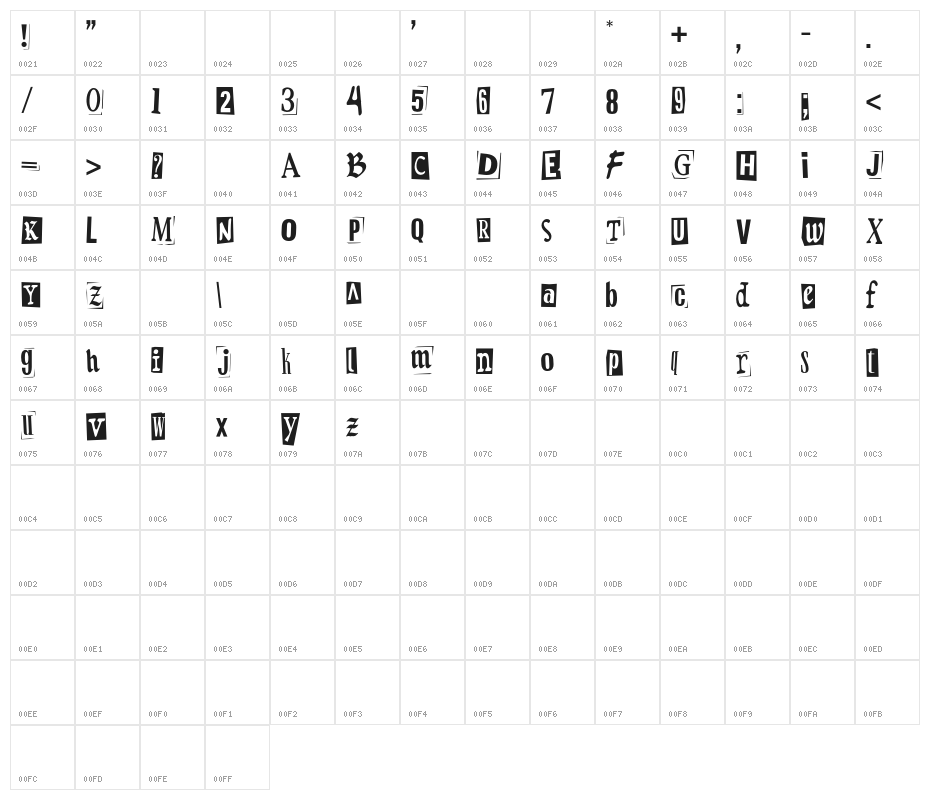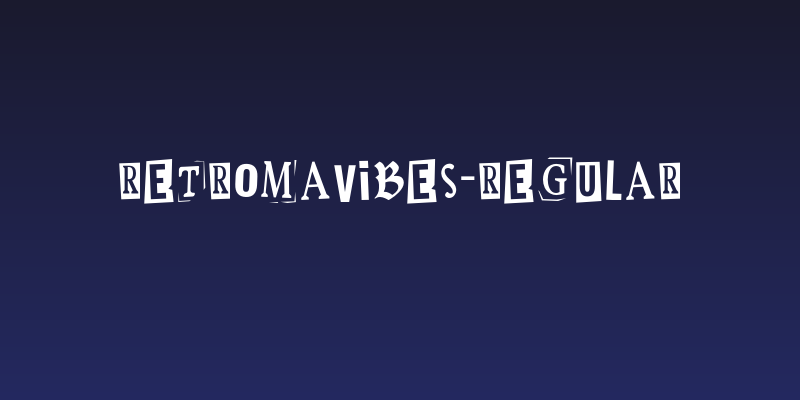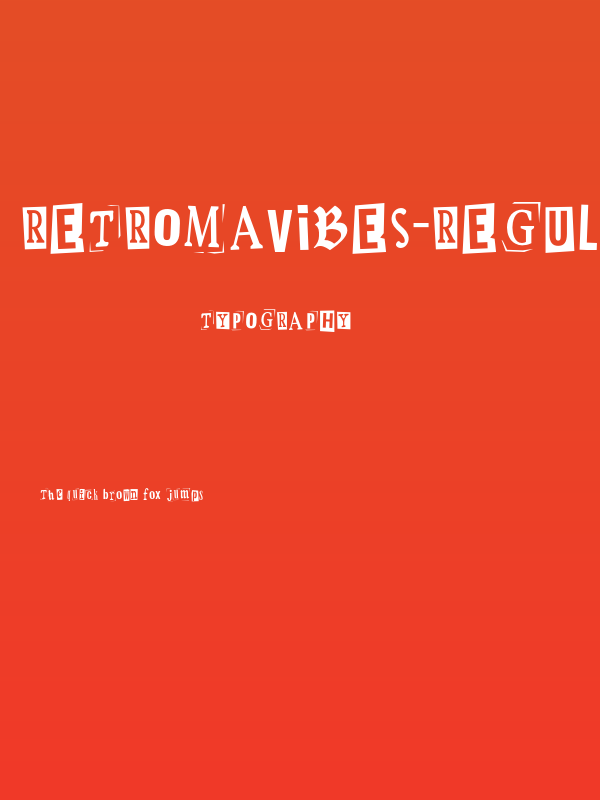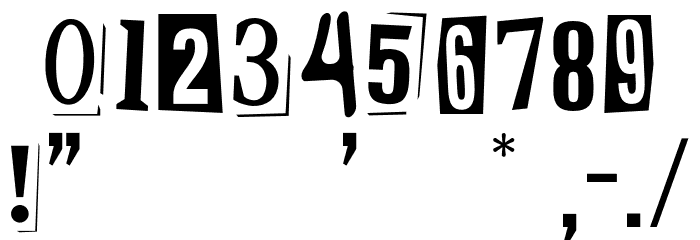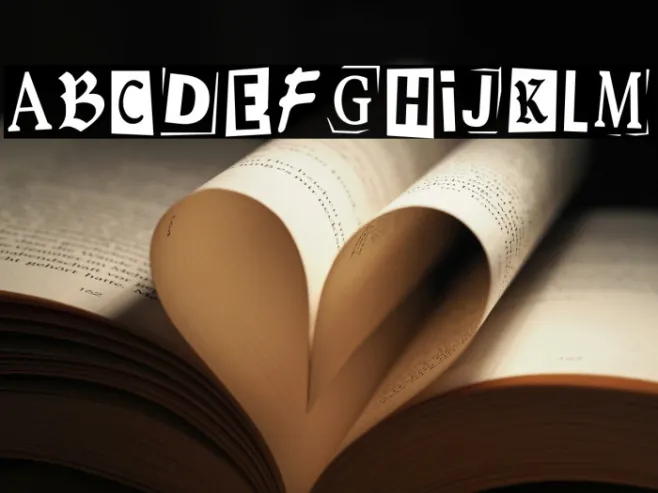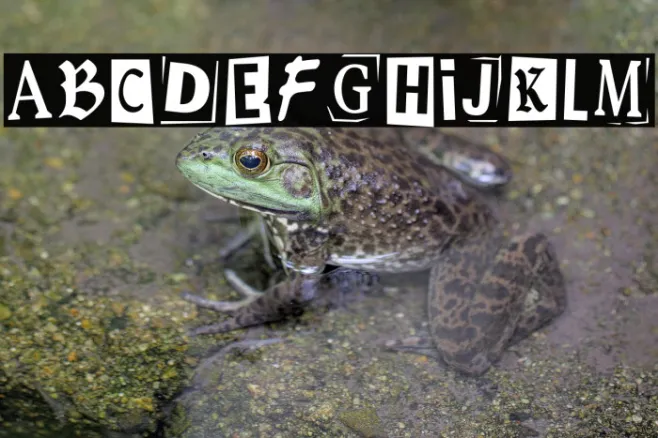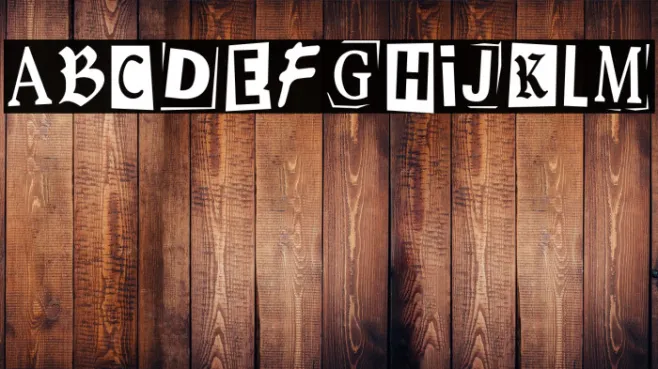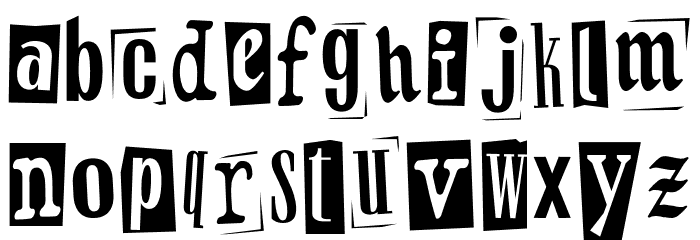
RetromaVibes-Regular Font
RetromaVibes-Regular Description
This font exudes a playful and eclectic vibe, reminiscent of retro styles with a modern twist. Each character is uniquely designed, featuring a mix of bold and thin strokes, with some letters enclosed in irregular shapes that add a dynamic and quirky feel. The uppercase letters are particularly striking, with varying heights and widths, creating a sense of movement and energy. The lowercase letters maintain this playful aesthetic, while the numbers and special characters continue the theme with their distinctive and eye-catching designs. This font is perfect for projects that require a bold statement and a touch of nostalgia.
| Overall Style | Retro, Eclectic, Playful |
| Proposed Projects | Ideal for vintage posters, creative branding, album covers, and playful editorial designs. |